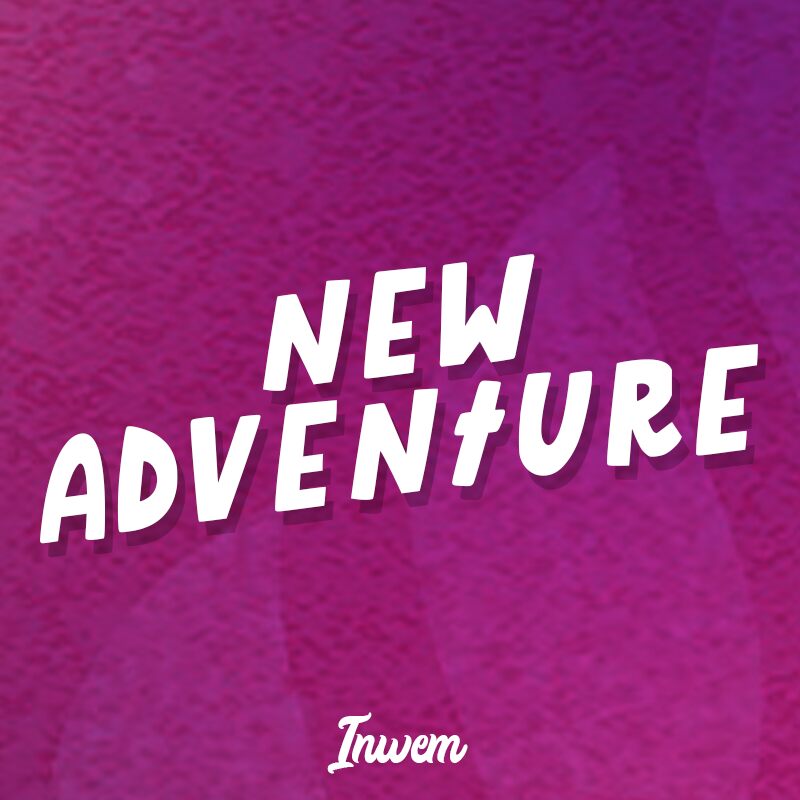
New Adventure Regular
New Adventure font is a cartoon typeface designed by Dylan Hawks.
This font has been heavily inspired by promotion characters for Hasbros My Little Pony line.